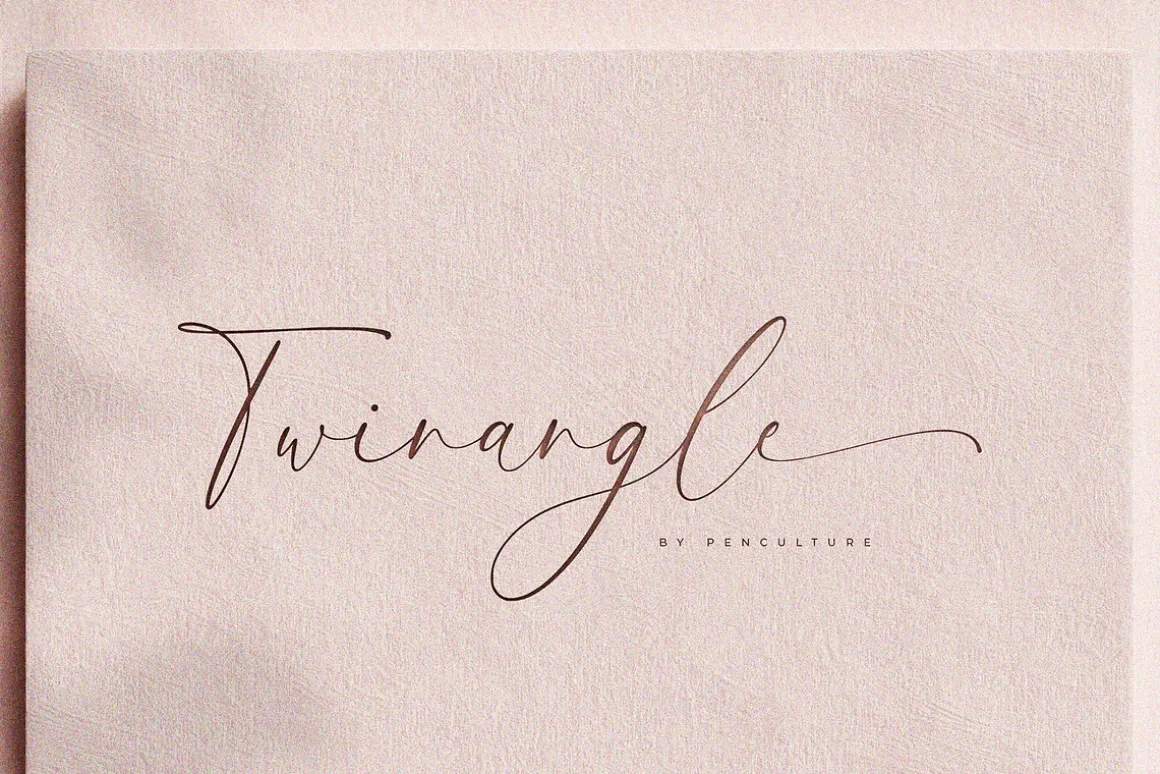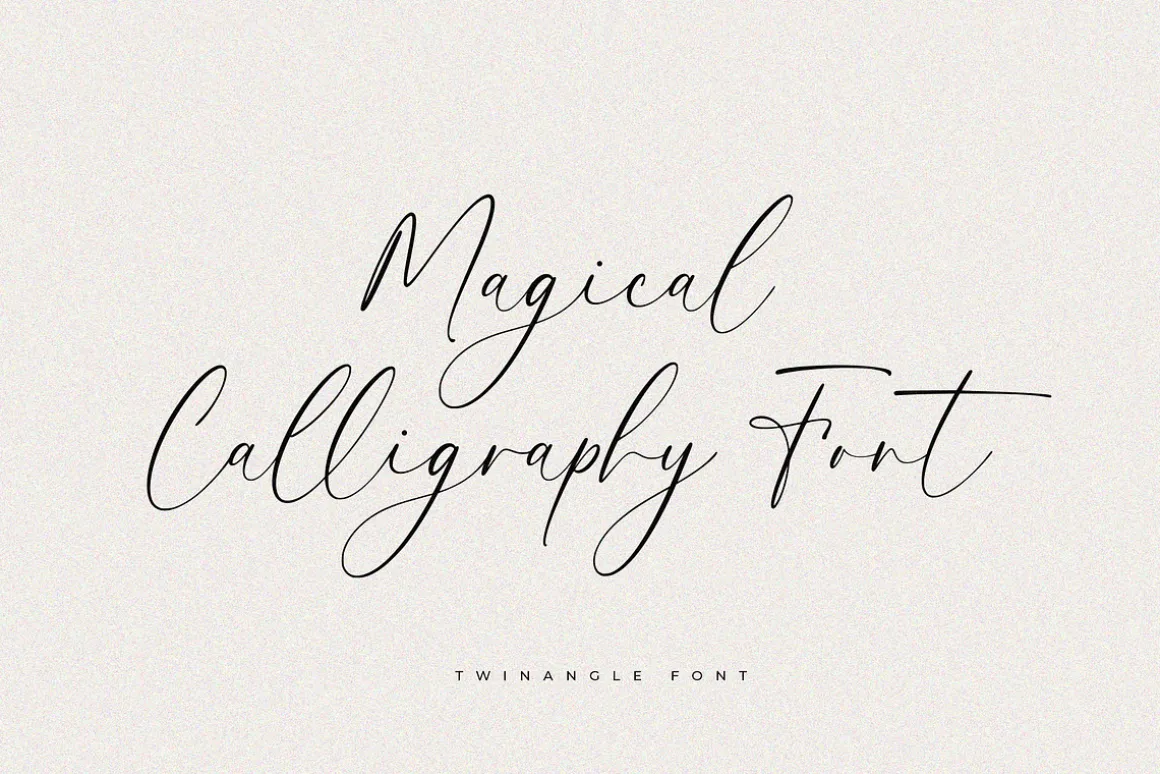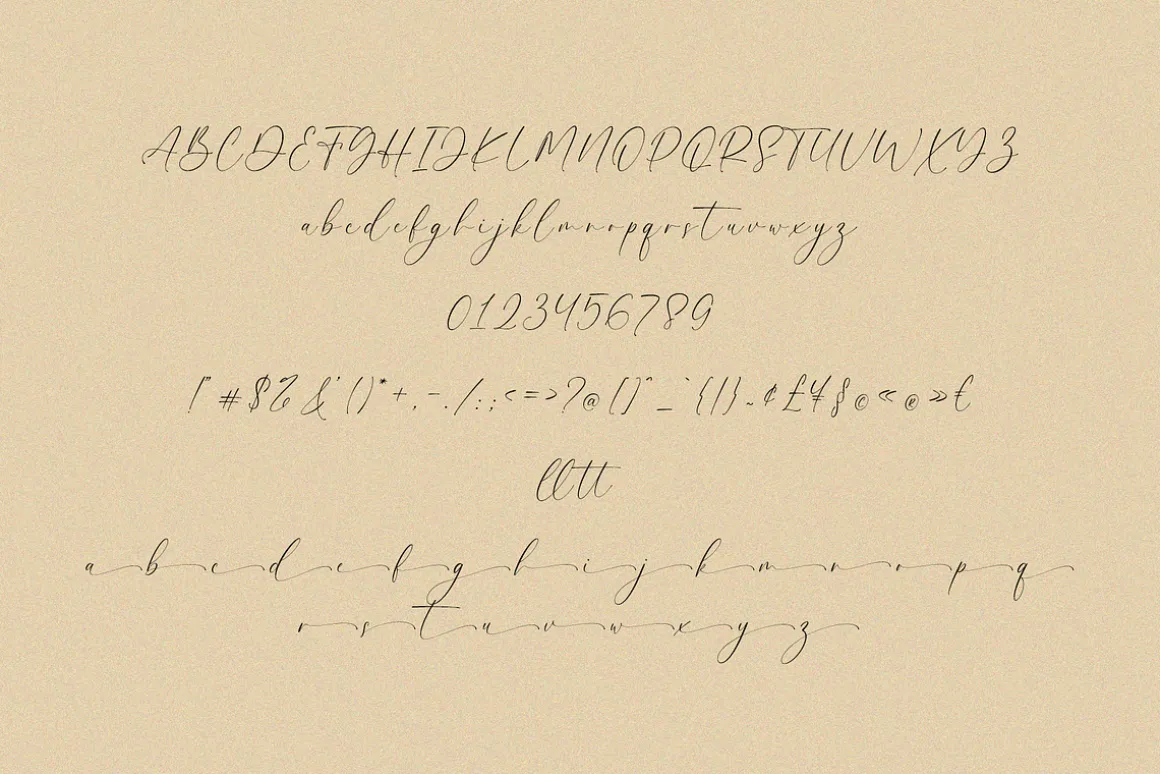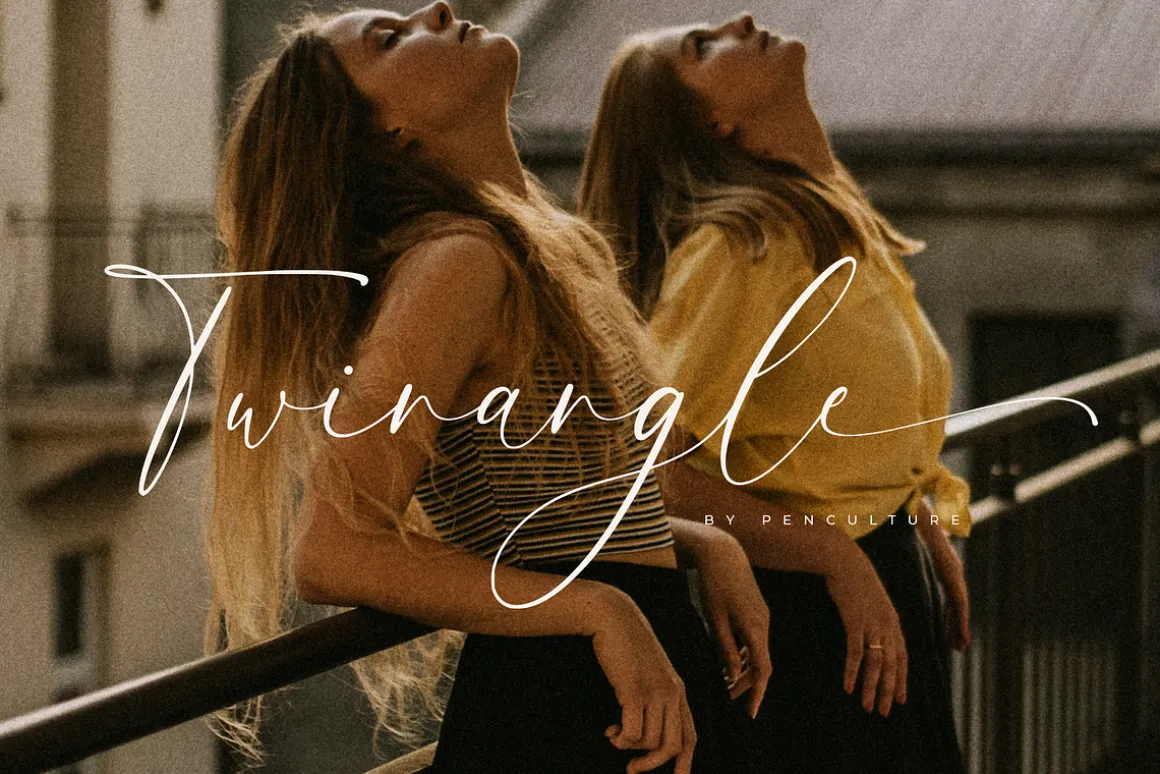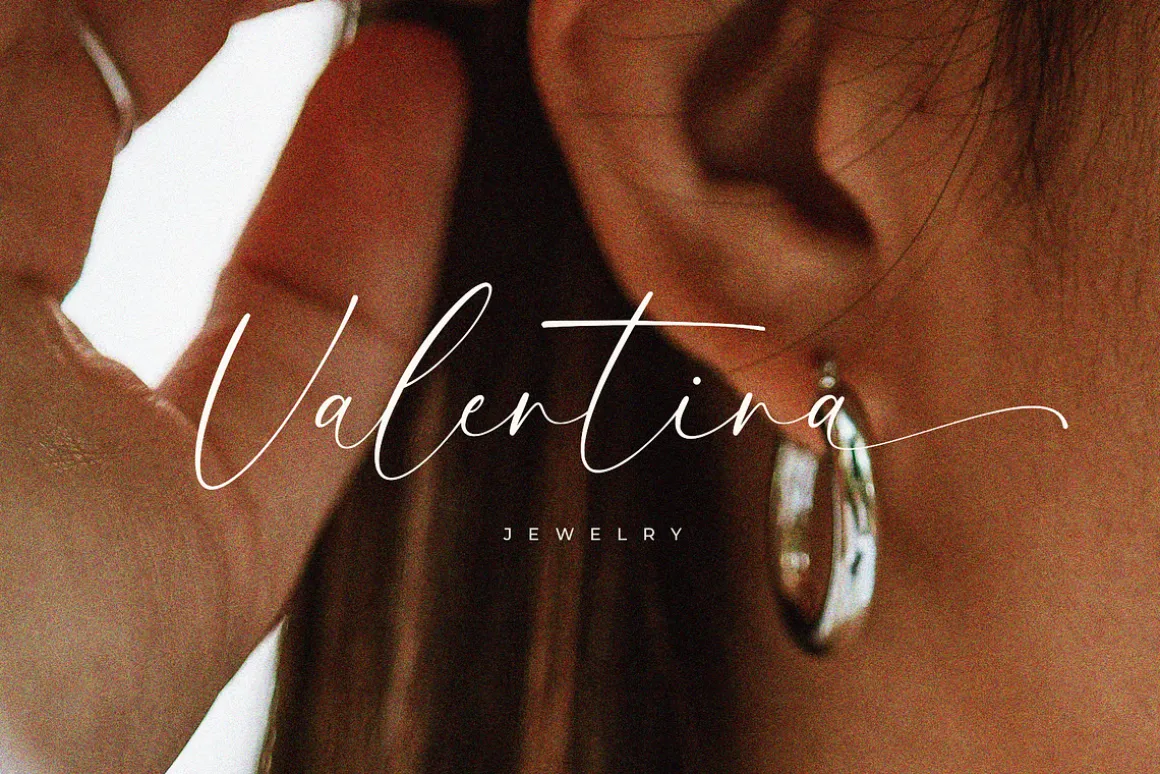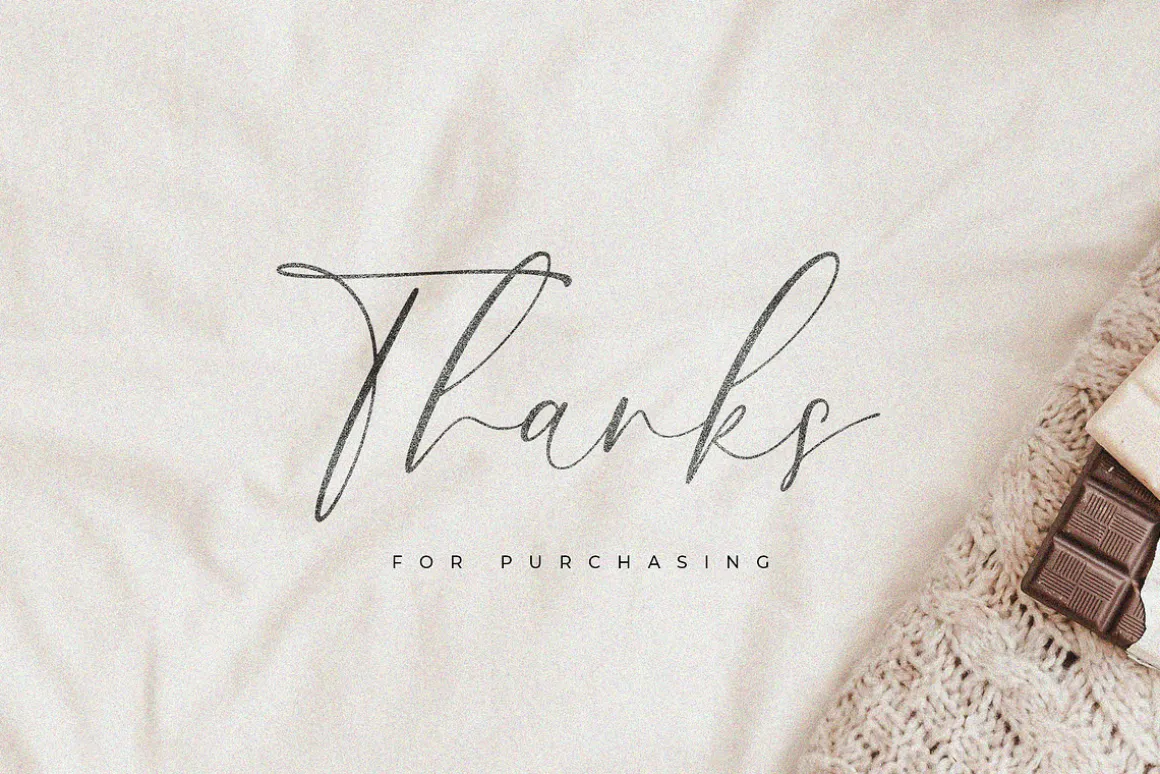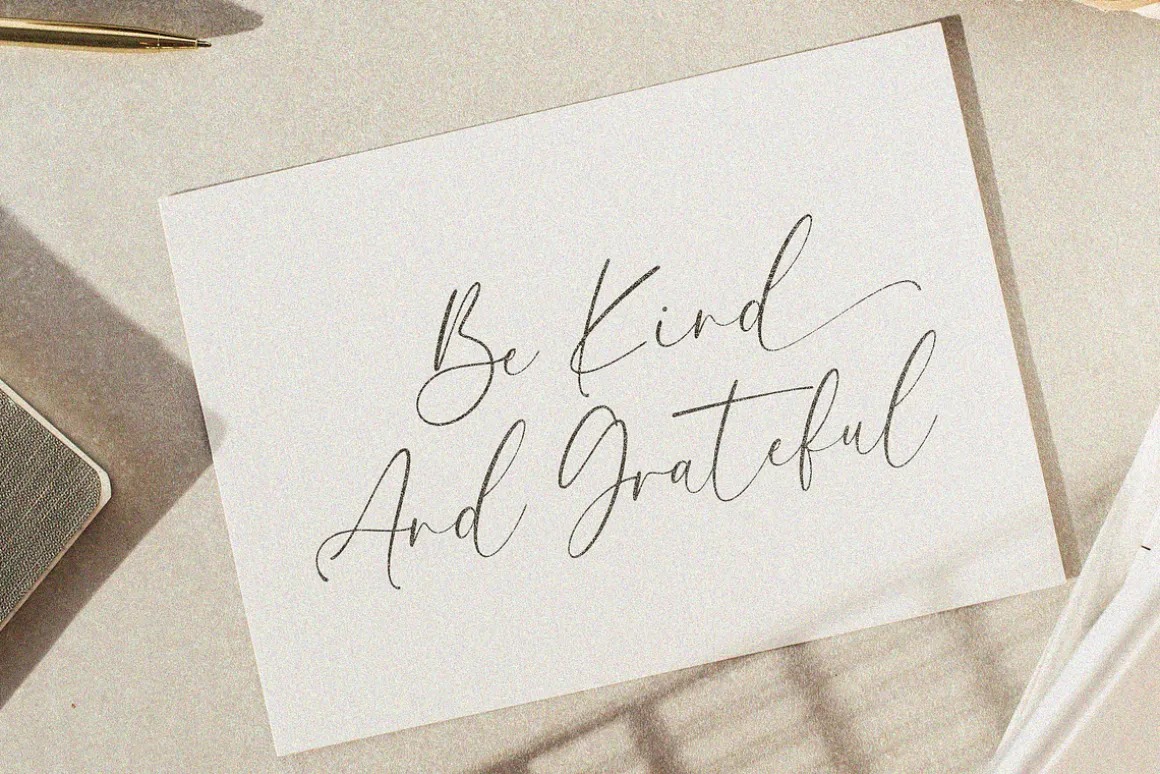
Introducing Twinangle, an exquisite script calligraphy font crafted with authentic, hand-drawn elegance. Perfectly suited for a myriad of design projects, Twinangle’s graceful curves and delicate swashes bring a touch of sophistication and charm to every creation.
Each character in Twinangle is meticulously hand-crafted, ensuring a unique and personal touch, and the font includes beautifully designed ligatures and swashes to enhance your text with a sophisticated flair. Ideal for wedding invitations, greeting cards, logos, and more, Twinangle adds a timeless elegance to any project.